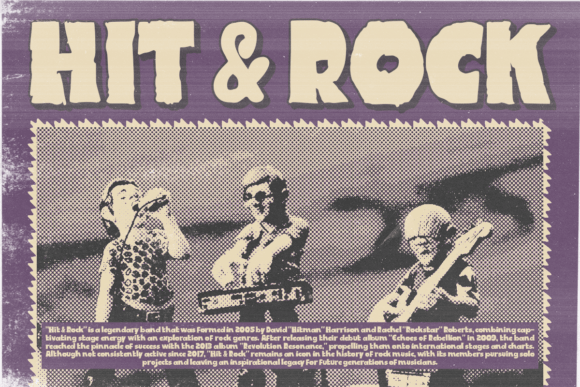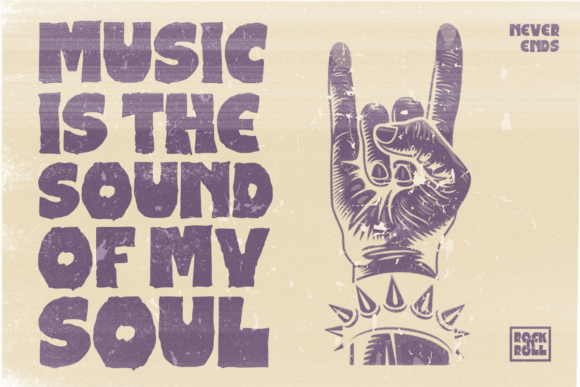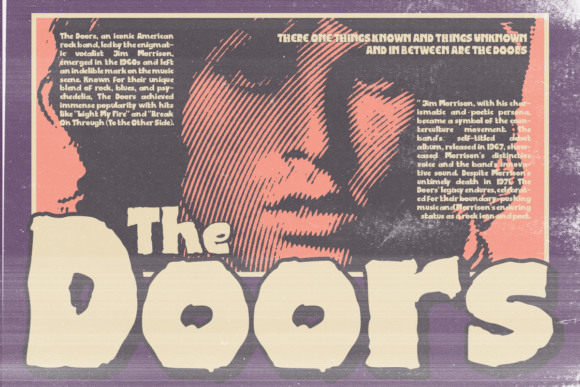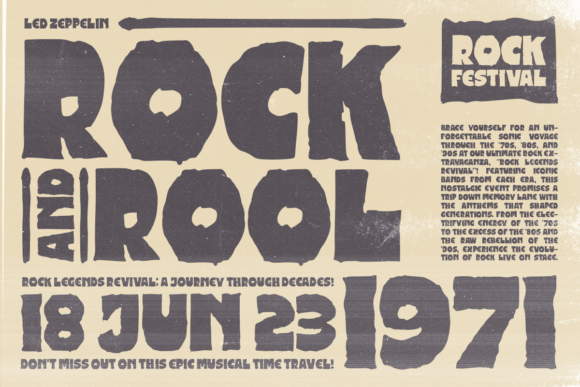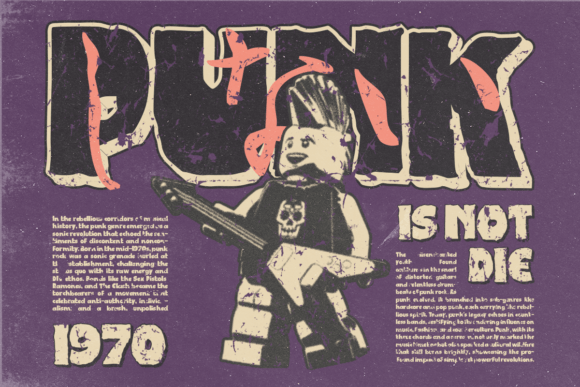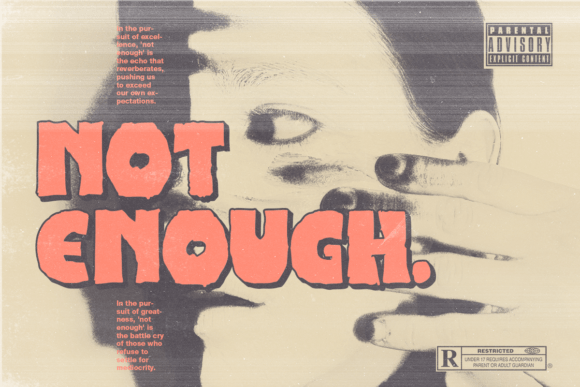
Introducing Handclaps Font: The Ultimate Choice for Bold and Statement-Making Designs
Are you looking for a font that can add a touch of ruggedness and edginess to your design projects? Look no further than Handclaps Font, a textured bold and heavy sans serif font that’s perfect for making a statement. With its gritty and rough texture, Handclaps Font is ideal for designers and crafters who want to add a unique and eye-catching element to their work.
What is Handclaps Font?
Handclaps Font is a bold and heavy sans serif font that’s designed to make a statement. Its textured and rough appearance gives it a unique and rugged look that’s perfect for designs that require a bit of attitude. Whether you’re working on a poster, headline, or album cover, Handclaps Font is the perfect choice for adding a touch of grit and texture to your design.
Key Features of Handclaps Font
• Textured and Rough Appearance: Handclaps Font has a unique textured and rough appearance that gives it a rugged and edgy look.
• Bold and Heavy: With its bold and heavy design, Handclaps Font is perfect for making a statement in your design projects.
• Suitable for Various Design Projects: Handclaps Font can be used for a variety of design projects, including posters, headlines, album covers, and more.
• Easy to Read: Despite its bold and textured appearance, Handclaps Font is easy to read and understand, making it perfect for designs that require a clear and concise message.
Use Cases for Handclaps Font
Handclaps Font is a versatile font that can be used for a variety of design projects. Here are some use cases where Handclaps Font is particularly effective:
• Poster Design: Handclaps Font is perfect for poster design, where its bold and textured appearance can help grab the attention of your audience.
• Headline Design: With its bold and heavy design, Handclaps Font is ideal for headline design, where it can help make a statement and draw attention to your message.
• Music and Album Design: Handclaps Font is also suitable for music and album design, where its gritty and rough texture can help add a touch of edginess and attitude to your design.
Benefits of Using Handclaps Font
There are several benefits to using Handclaps Font in your design projects. Here are some of the key advantages:
• Unique and Eye-Catching: Handclaps Font has a unique and eye-catching appearance that can help your design stand out from the crowd.
• Versatile: Handclaps Font can be used for a variety of design projects, making it a versatile addition to your font library.
In conclusion, Handclaps Font is a bold and textured font that’s perfect for designers and crafters who want to add a touch of ruggedness and edginess to their design projects. With its gritty and rough texture, Handclaps Font is ideal for making a statement and drawing attention to your message. Whether you’re working on a poster, headline, or album cover, Handclaps Font is the perfect choice for adding a unique and eye-catching element to your design.